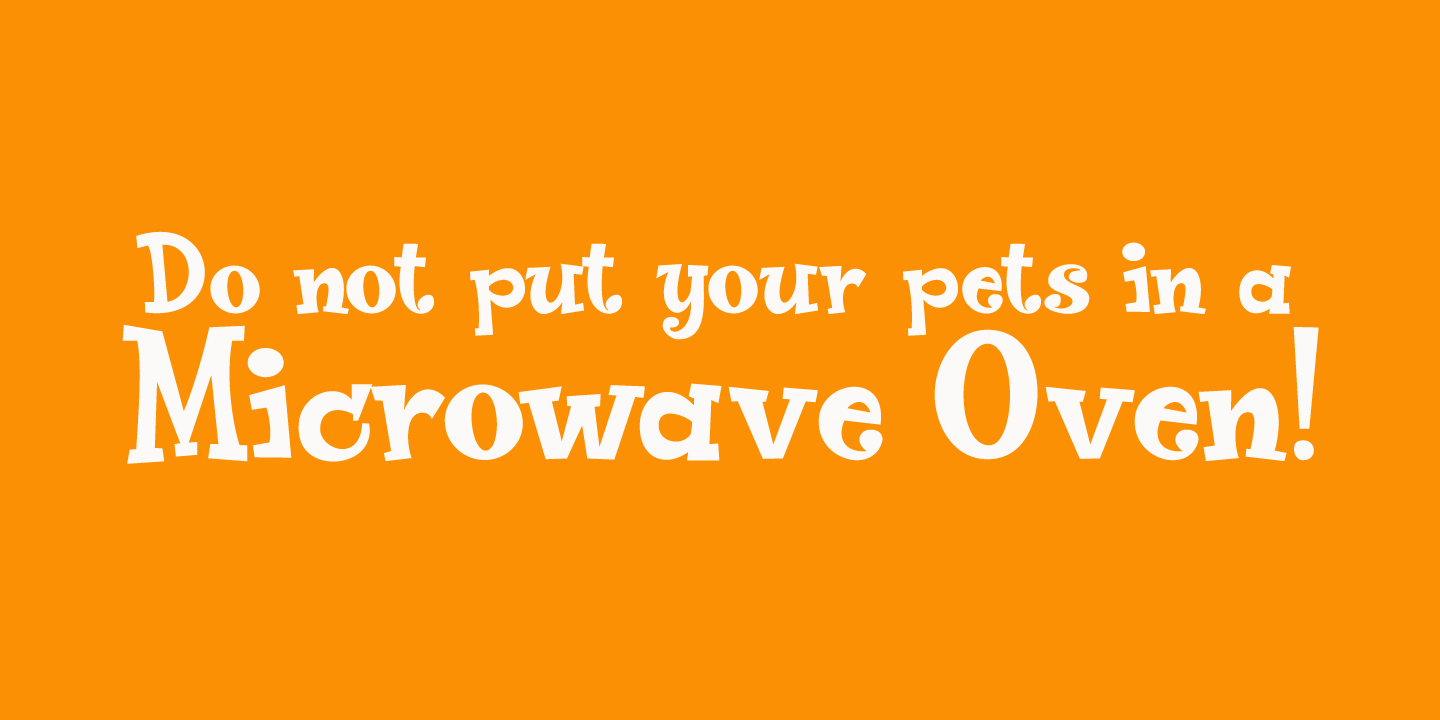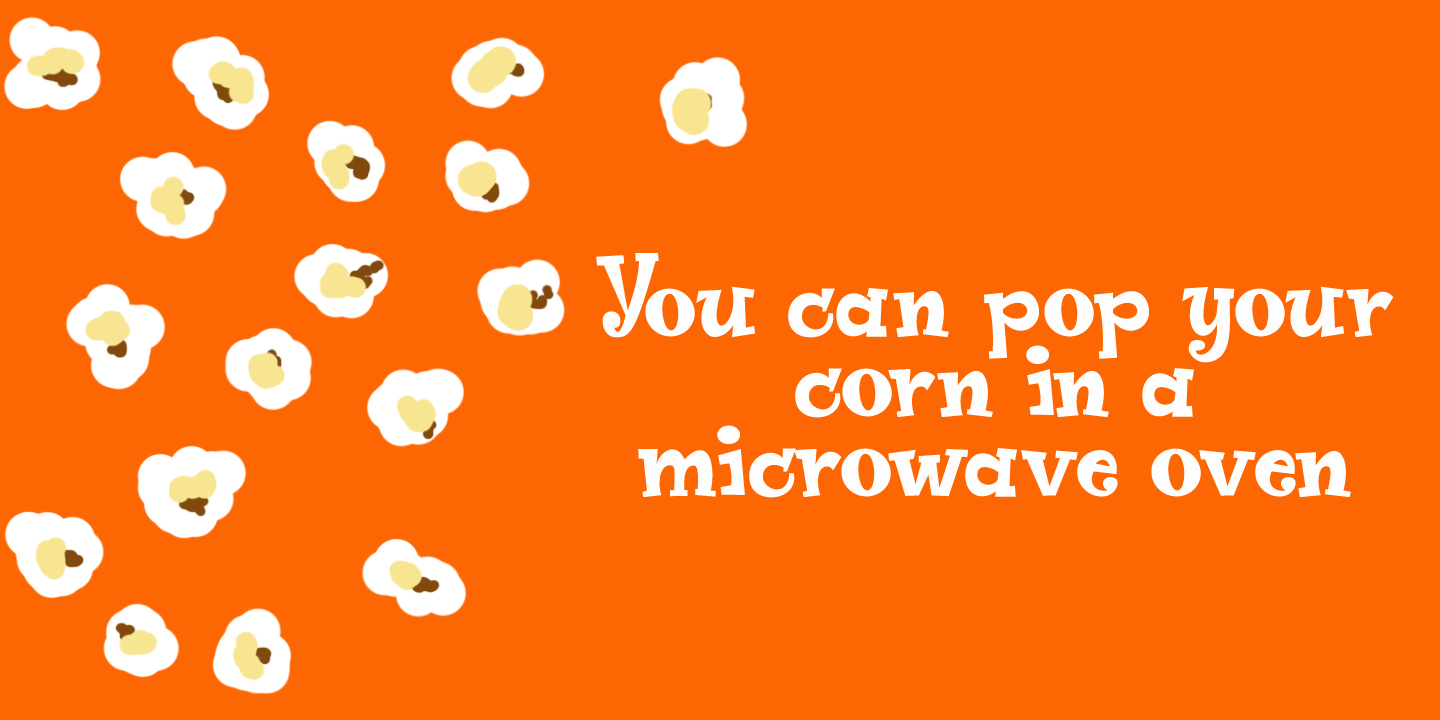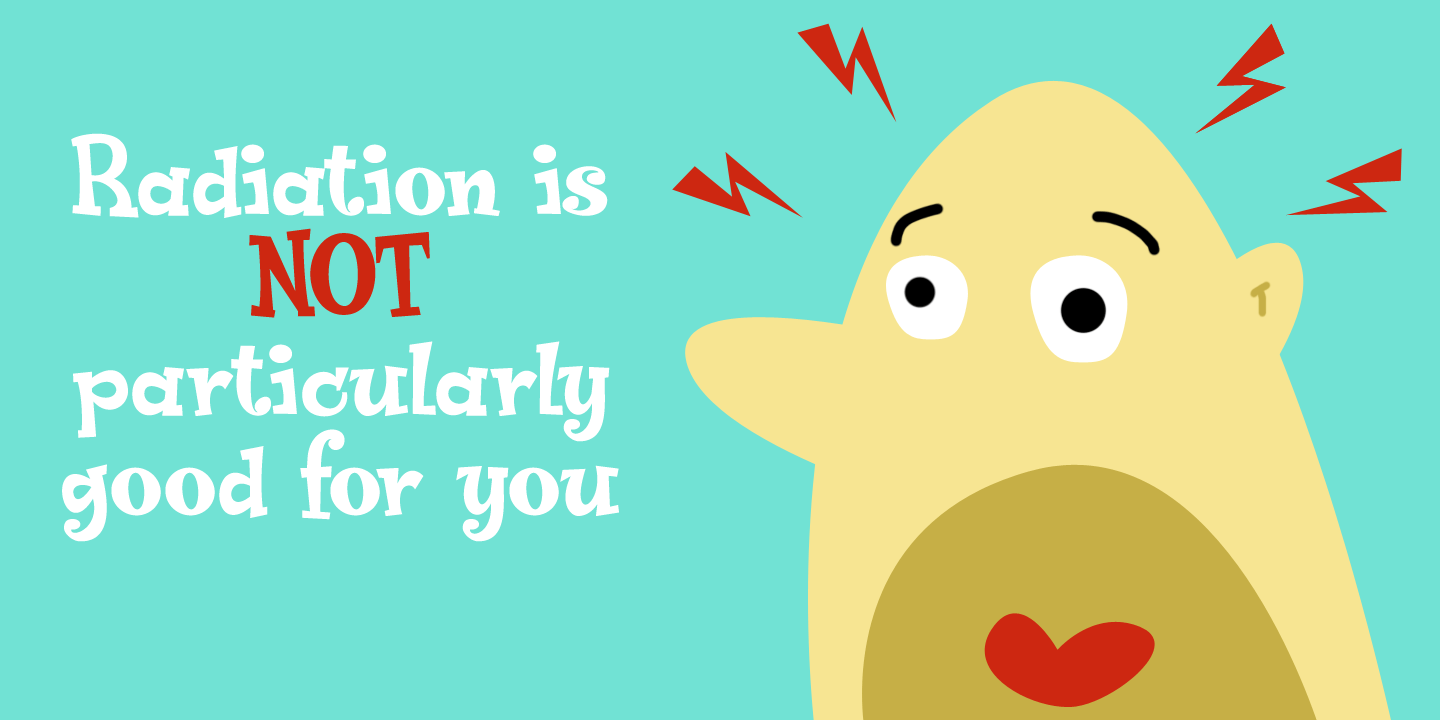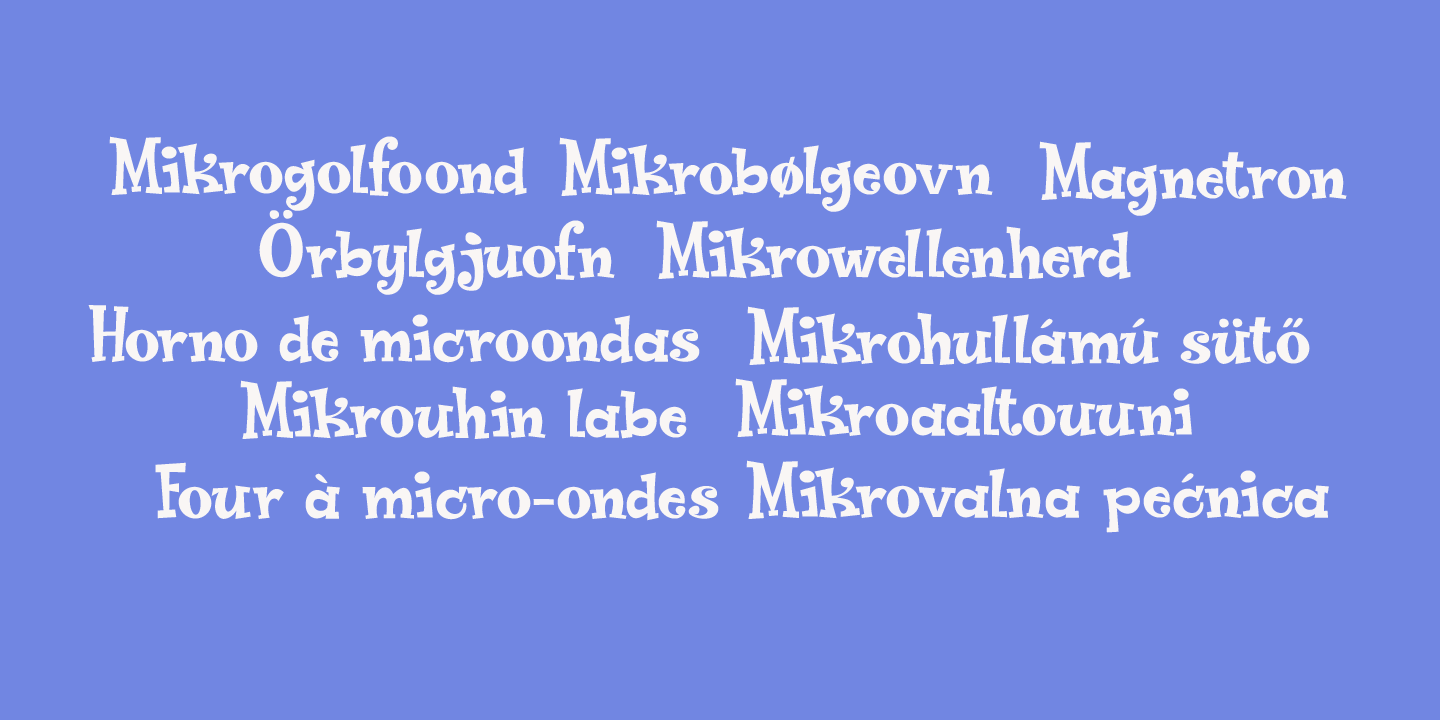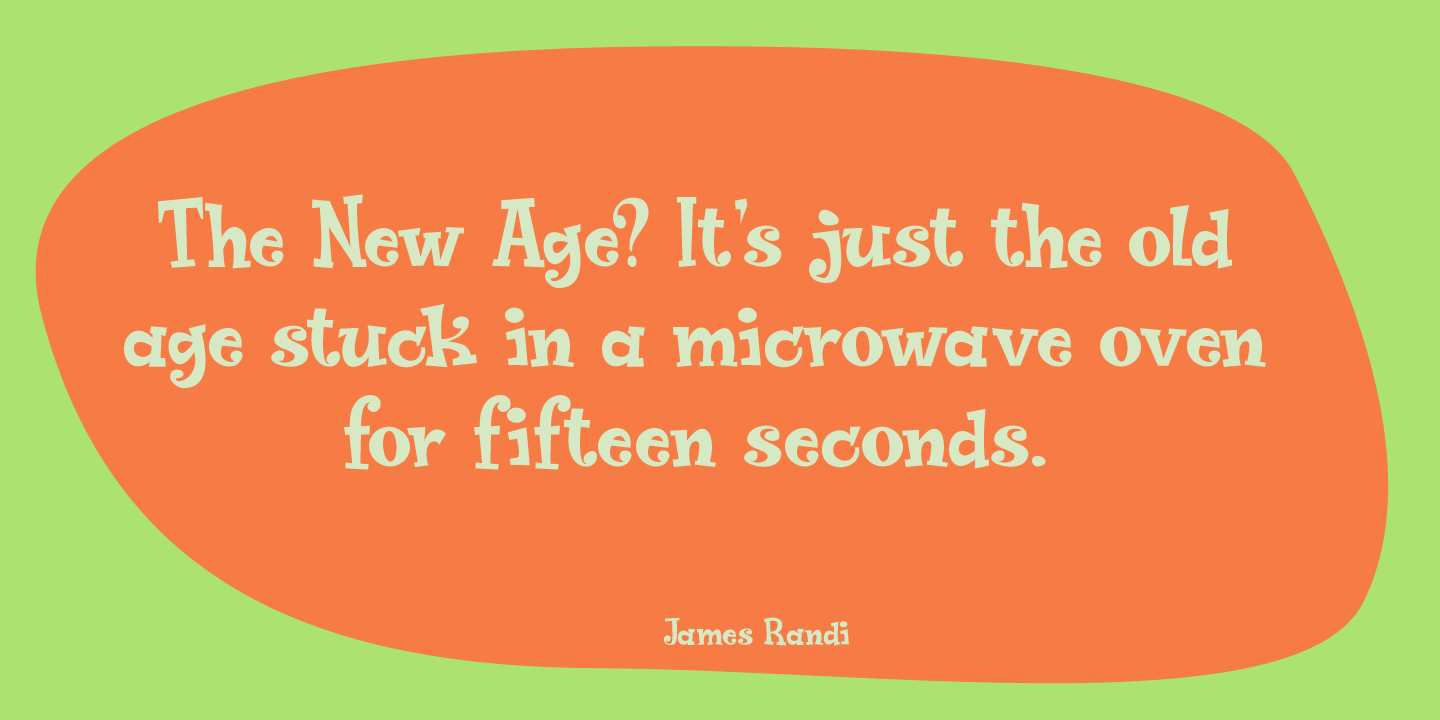
Popty Ping
About Popty Ping
Popty Ping is Welsh slang for microwave oven. It literally means ?oven that goes ping?. Popty Ping was sort of based on an older font of mine called Jambo. It is a very happy cartoon font, ideal for children\’s book covers, ice cream packaging and microwave…